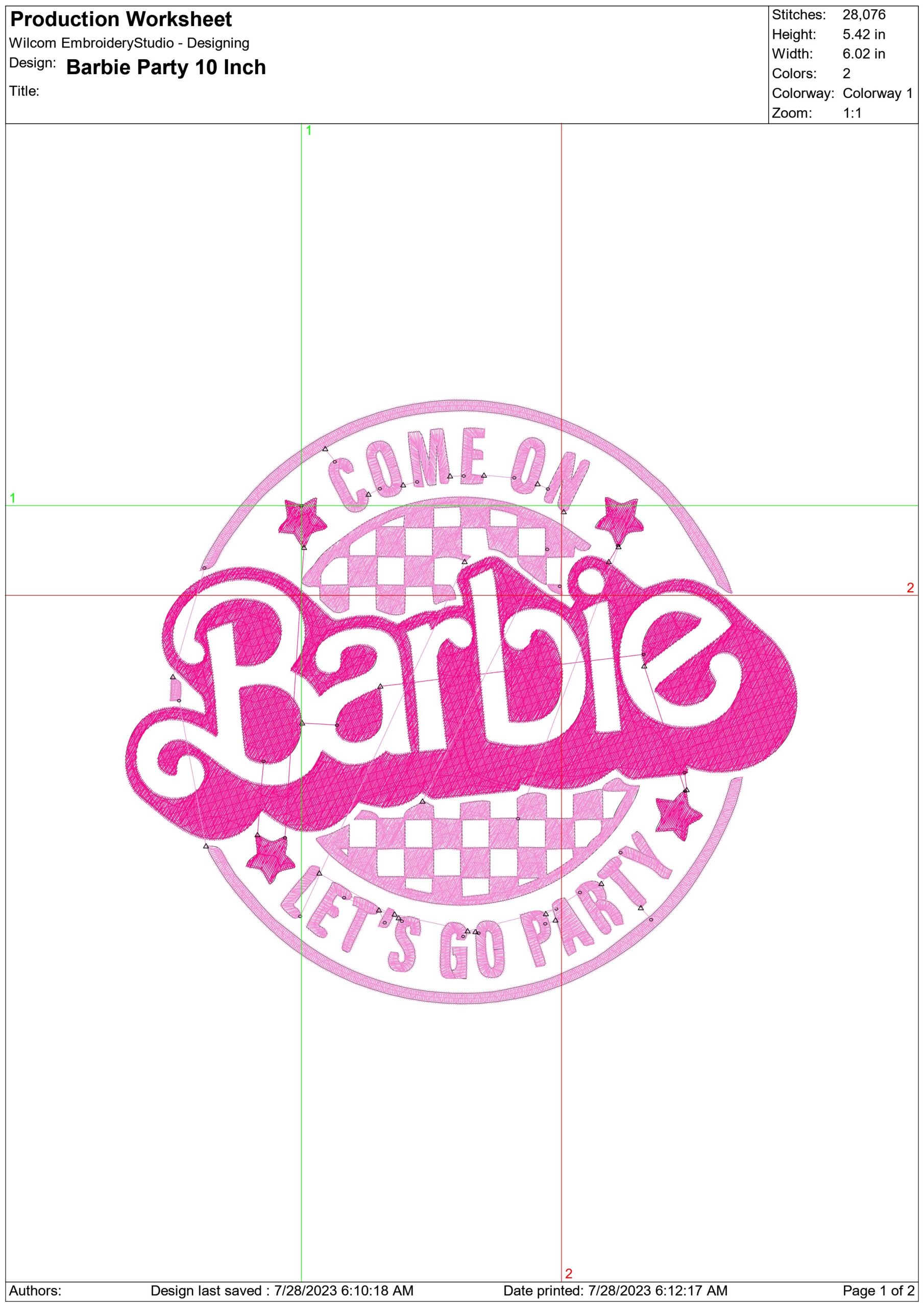
A bold Barbie party badge in hot pinks that gives jackets, bags and birthday outfits an instant pop-star feel.
Bring bubblegum party energy to a birthday outfit with this Barbie-inspired badge design, built around the line “COME ON Barbie LET'S GO PARTY”. The circular logo layout, checkerboard details, little stars and arched lettering give it the feel of a printed party emblem, while the hot pink, light pink and white palette keeps it unmistakably playful. It suits children’s partywear especially well, but it also works for anyone putting together a fun, pink-themed celebration look.
This is the kind of design that stands out best on denim jackets, hoodies, sweatshirt fronts, tote bags and sleepover pyjama tops where the round badge shape can sit cleanly and read at a glance. With just 2 thread colours, it keeps the stitching visually crisp rather than fussy, even though the design itself has a moderately dense, filled look. Use it when you want a strong central motif that brings the Barbie theme across quickly without needing extra decoration around it.